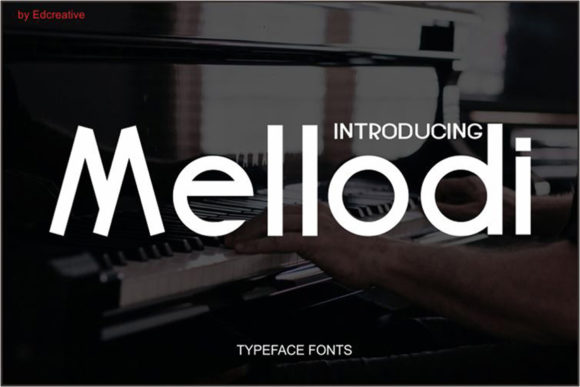
Mellodi Font
Introducing Mellodi, a timeless sans-serif font that adds a touch of sophistication to any design. Its clean lines and elegant curves create a striking visual impact that's perfect for headlines, logos, and body text. Embrace the power of seamless readability and timeless appeal - let your words shine with Mellodi's refined aesthetics.
Mellodi's versatility knows no bounds - from sleek websites to captivating marketing materials, from stylish branding to eye-catching social media posts, it effortlessly adapts to your creative vision. Its ability to seamlessly blend with various design elements ensures a cohesive and harmonious look across all your projects.
Immerse yourself in the world of Mellodi and discover a symphony of elegance and functionality. Unleash your creativity and watch your ideas come to life with this stunning font. Its meticulously crafted letterforms exude a sense of luxury and refinement, leaving a lasting impression on your audience.
With Mellodi, the possibilities are endless - transform your designs into captivating masterpieces that resonate with your target audience. Its timeless charm will elevate your projects above the ordinary, leaving a lasting impact that sets you apart from the competition.
Embark on a journey of typographic beauty with Mellodi. Its versatility, readability, and undeniable style will captivate your audience and leave them craving more. Experience the transformative power of Mellodi and witness the magic unfold as your words take center stage.